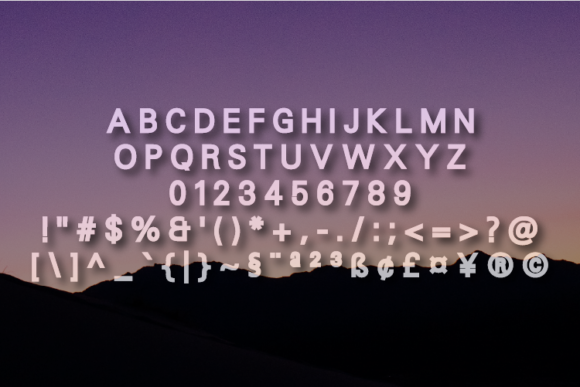
Fiern Font: The Modern Sans Serif Solution for Your Design Needs
In the world of typography, fonts play a crucial role in conveying the message and tone of a design. With the numerous font options available, finding the perfect one that complements your design can be a daunting task. However, if you’re looking for a modern sans serif font that strikes the right balance between smooth and sharp, look no further than Fiern Font.
What is Fiern Font?
Fiern Font is a contemporary sans serif font designed to meet the diverse needs of designers, crafters, and artists. Its clean lines, precise curves, and balanced structure make it an ideal choice for a wide range of design projects, from branding and advertising to packaging and digital media.
Key Features of Fiern Font
- Modern Sans Serif Design: Fiern Font boasts a sleek and modern sans serif design that exudes professionalism and sophistication.
- Perfectly Balanced: The font’s smooth and sharp elements are perfectly balanced, creating a visually appealing contrast that adds depth and interest to your designs.
- Versatile: Fiern Font is designed to be versatile, making it suitable for various design applications, including headings, body text, and display text.
- Highly Legible: The font’s clear and precise letterforms ensure excellent legibility, even at smaller font sizes.
Benefits of Using Fiern Font
So, why choose Fiern Font for your design projects? Here are just a few benefits you can expect:
- Enhance Your Brand’s Visual Identity: Fiern Font’s modern and sleek design can help elevate your brand’s visual identity and create a lasting impression on your audience.
- Streamline Your Design Process: With Fiern Font’s versatility and legibility, you can use it across various design projects, reducing the need to search for multiple fonts.
- Stand Out from the Crowd: Fiern Font’s unique blend of smooth and sharp elements can help your designs stand out in a crowded market.
Who Can Benefit from Fiern Font?
Fiern Font is an excellent choice for a wide range of designers, crafters, and artists, including:
- Graphic Designers: Fiern Font is perfect for graphic designers looking for a modern sans serif font for branding, advertising, and marketing materials.
- Digital Artists: Digital artists can use Fiern Font to add a touch of sophistication and elegance to their artwork.
- Crafters: Crafters and makers can use Fiern Font for packaging, labeling, and other design elements.
How to Use Fiern Font in Your Designs
Using Fiern Font in your designs is easy! Here are a few tips to get you started:
- Pair it with Other Fonts: Experiment with pairing Fiern Font with other fonts to create a unique and visually appealing typography.
- Adjust Font Sizes and Weights: Play with different font sizes and weights to add hierarchy and emphasis to your designs.
In conclusion, Fiern Font is an exceptional modern sans serif font that can elevate your designs to the next level. Its perfectly balanced mix of smooth and sharp elements, versatility, and legibility make it an ideal choice for designers, crafters, and artists. Whether you’re looking to enhance your brand’s visual identity, streamline your design process, or stand out from the crowd, Fiern Font is the perfect solution.